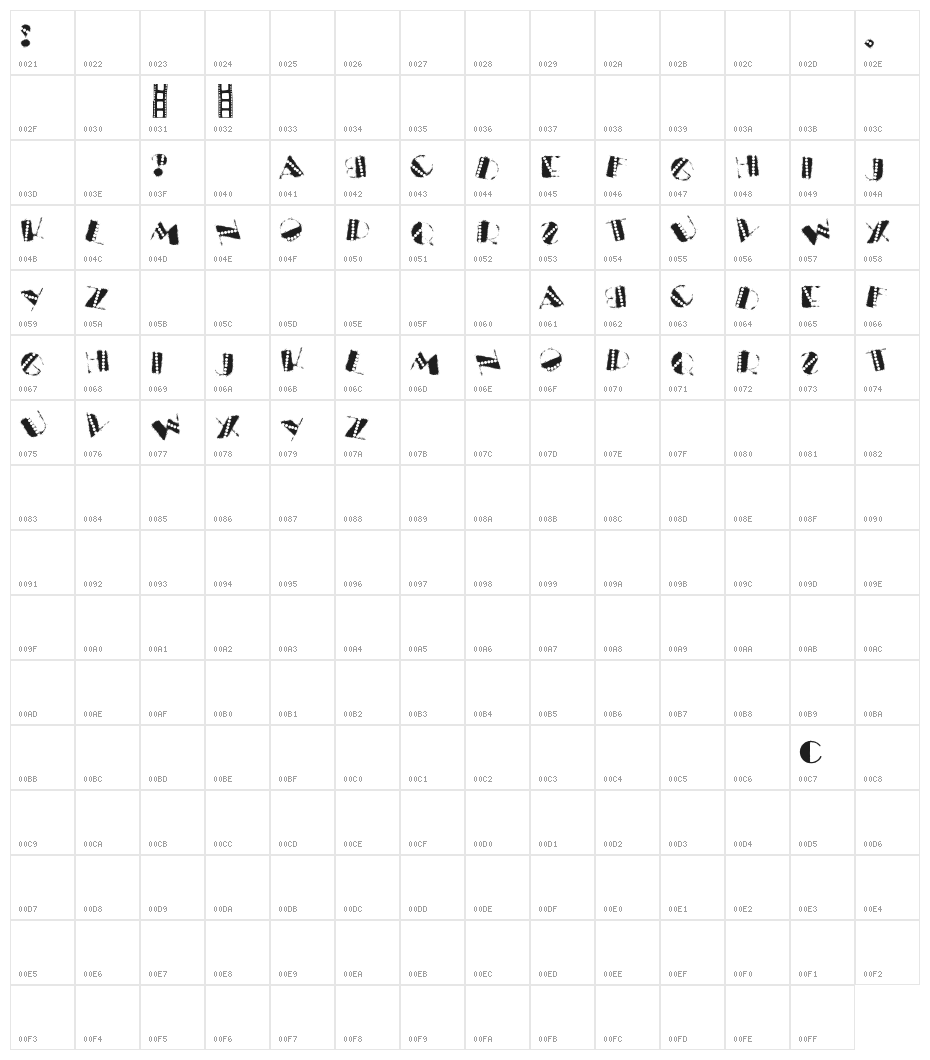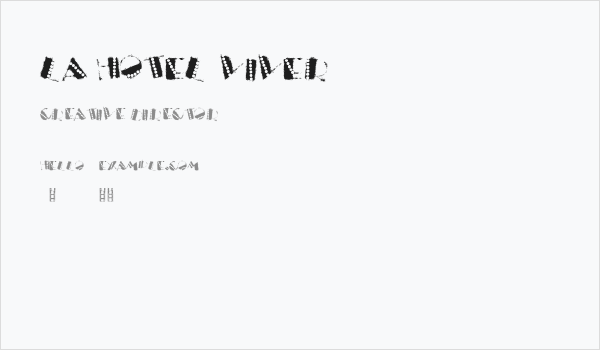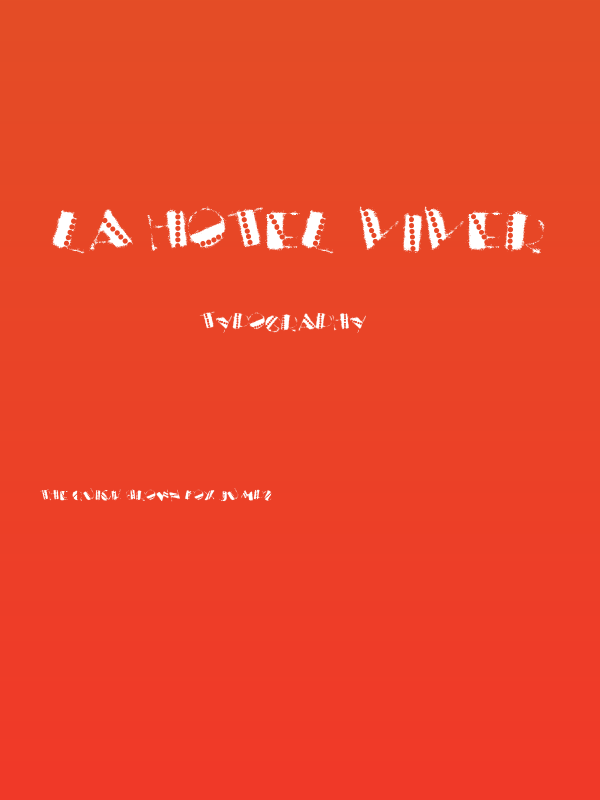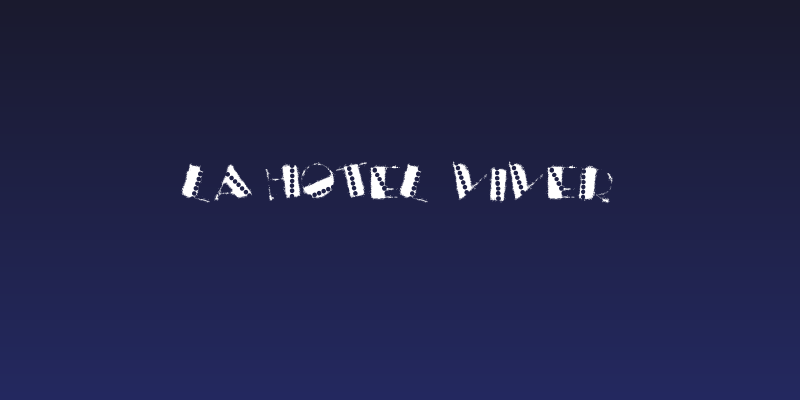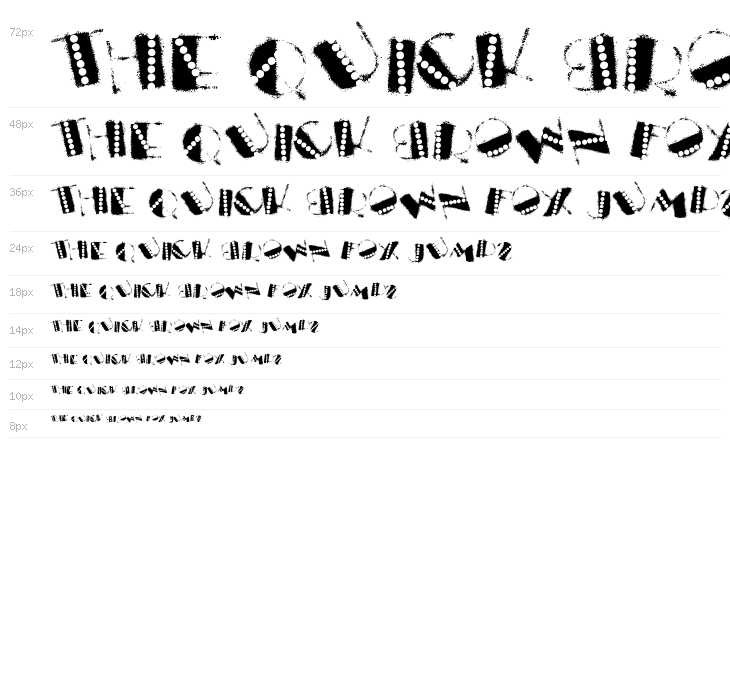
la hotel viver Font
la hotel viver Description
This font features a unique and playful design, reminiscent of film strips or perforated edges. Each character is crafted with a series of dots and lines that mimic the look of old-fashioned film reels, giving it a distinct cinematic feel. The letters are bold and have a slightly irregular shape, adding to the whimsical and artistic nature of the font. The overall appearance is both eye-catching and nostalgic, making it suitable for creative and entertainment-related projects.
| Proposed Projects | Ideal for movie posters, film festival branding, creative event invitations, and retro-themed designs. |